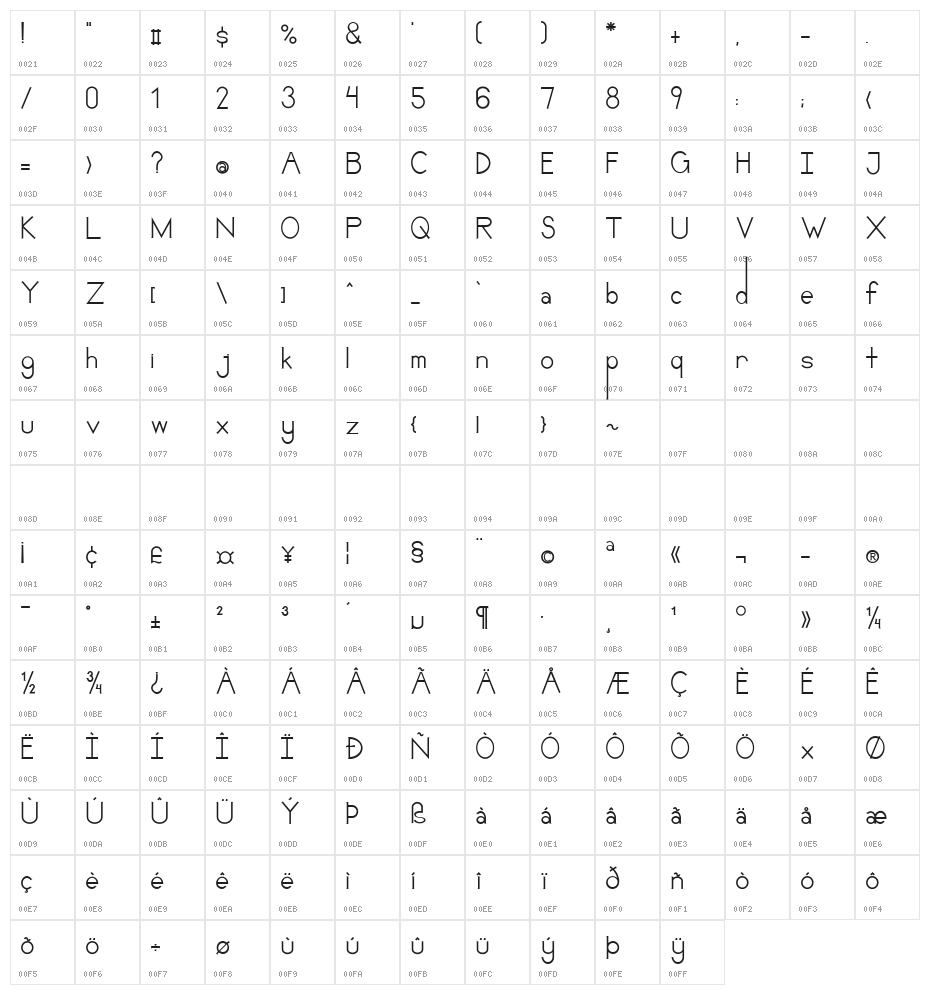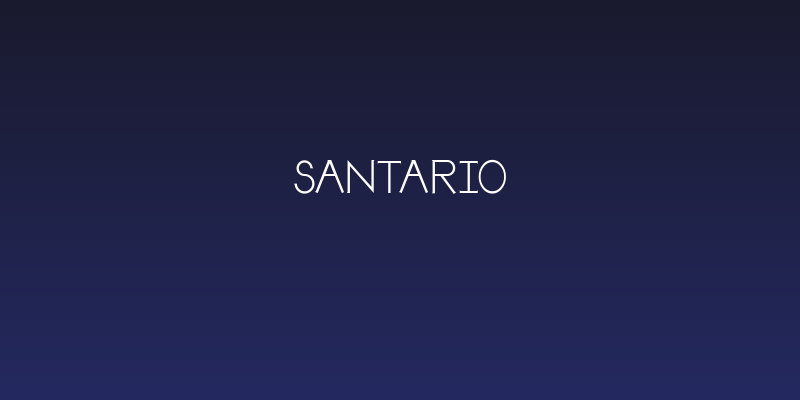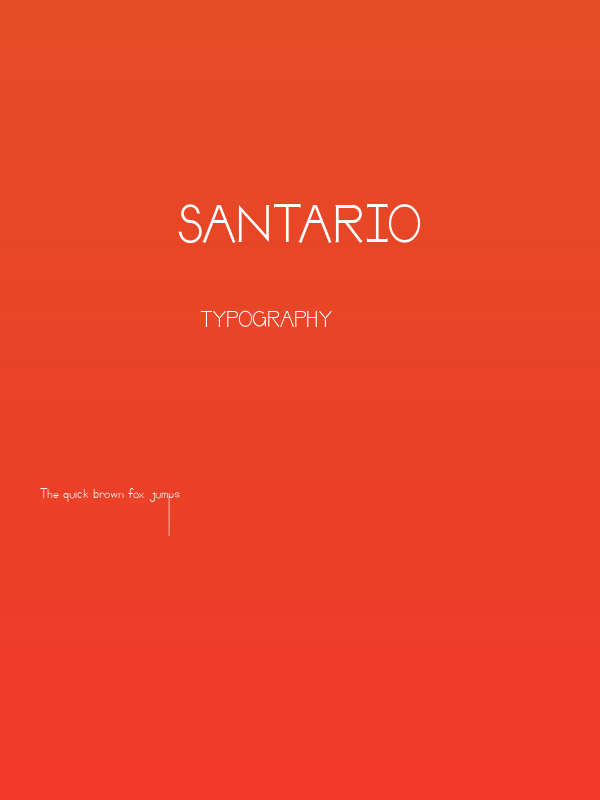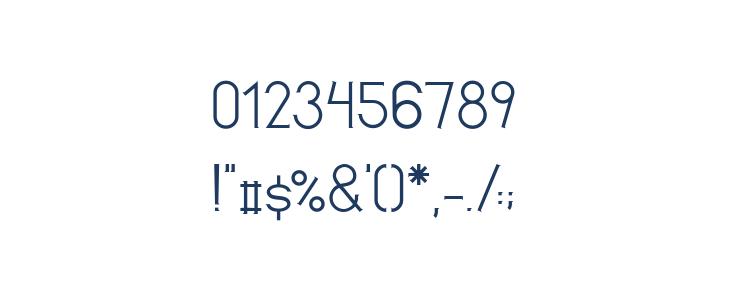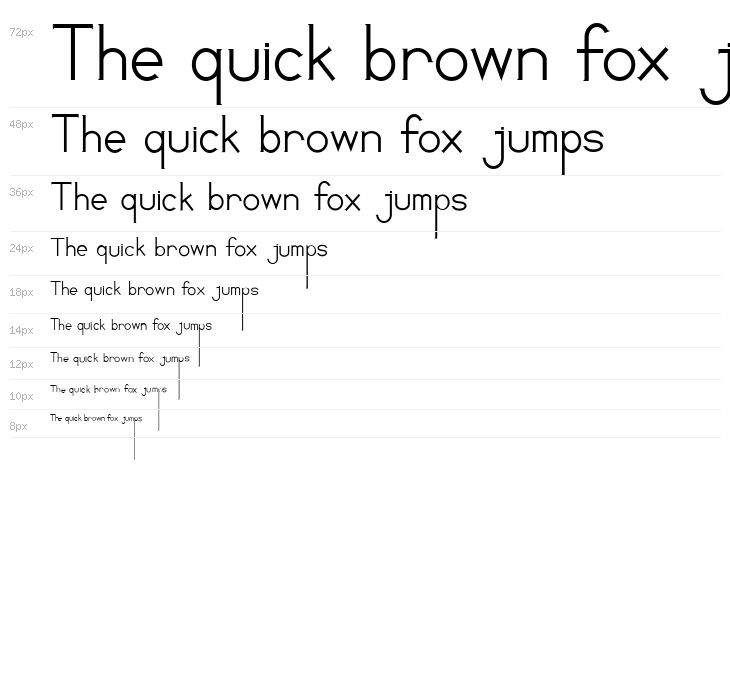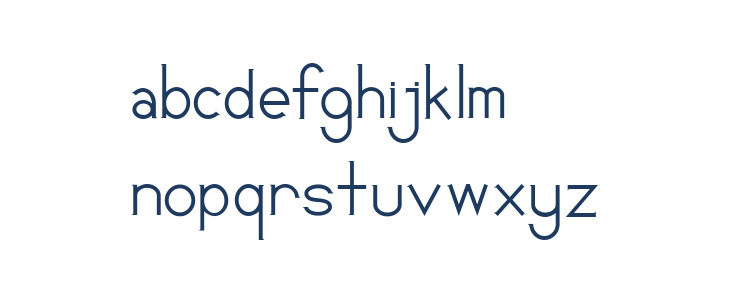
Santario Font
Santario Description
This font features a clean and modern sans-serif design, characterized by its geometric shapes and uniform stroke width. The uppercase letters are tall and slightly condensed, giving a sleek appearance, while the lowercase letters maintain a consistent height and rounded forms. The numerals are straightforward and align well with the overall style, ensuring clarity and readability. Special characters are included, matching the minimalist aesthetic. The font's simplicity makes it versatile for various design applications.